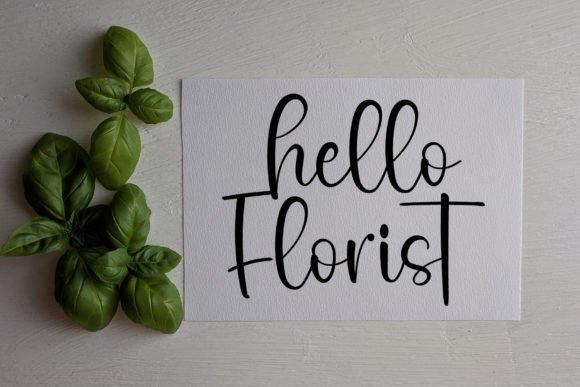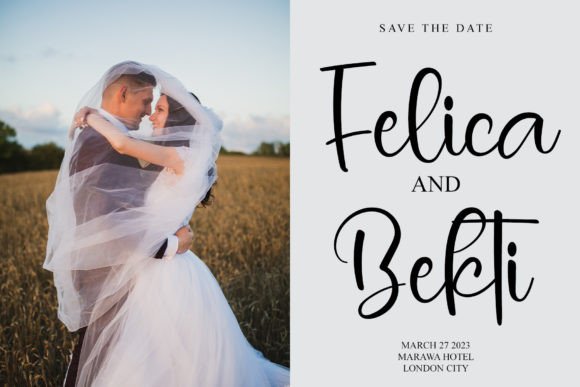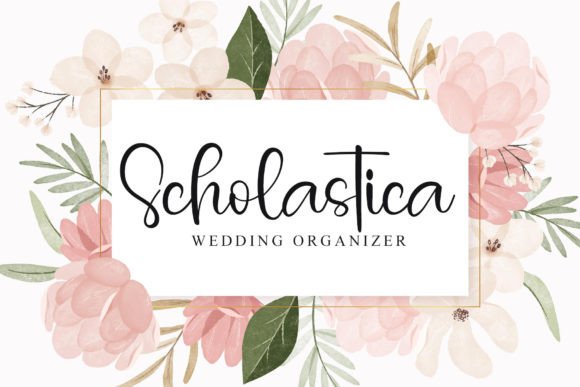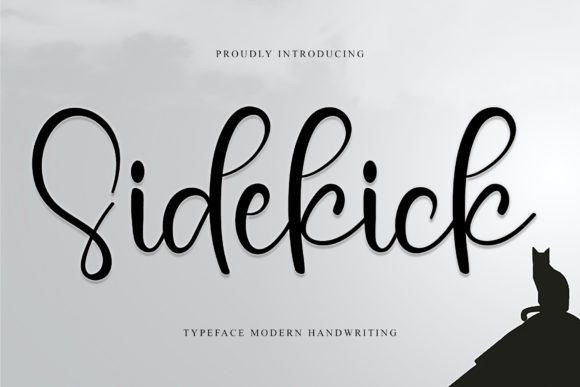
Introduction to Sidekick Font
Sidekick is a stylish and dainty script font.
It is suitable for any projects such as: logos, branding projects, label, photography, watermark, special events, and all your other lovely projects that need an elegant touch .
Sidekick Font offers exceptional quality and versatility, making it a valuable addition to your design toolkit. Whether you’re creating for personal projects or commercial use, Sidekick Font delivers professional results.